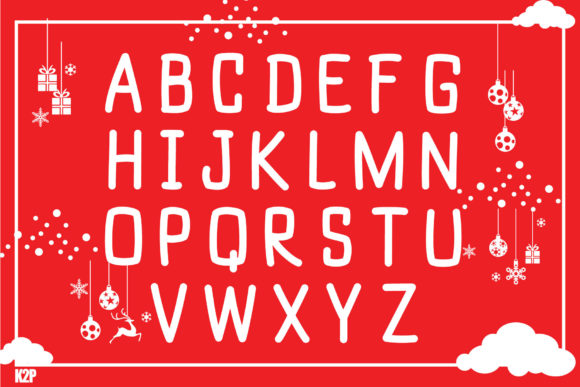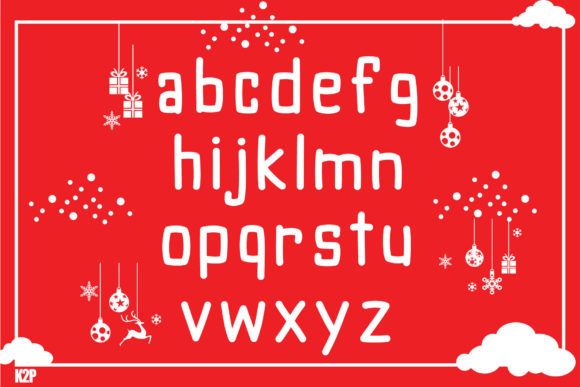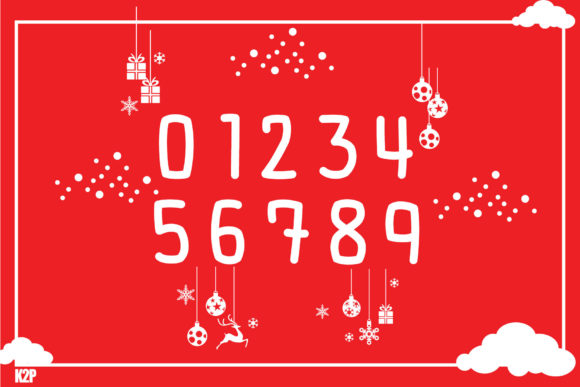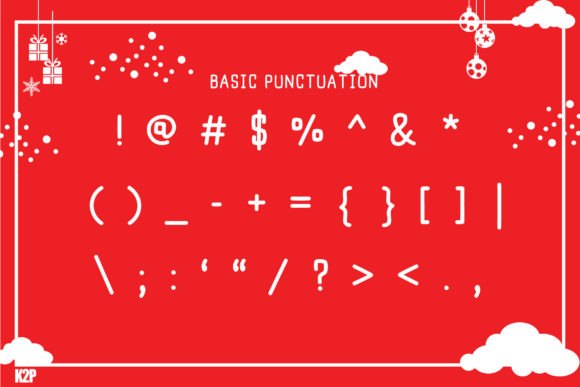
The Magic of Christmas!! Font: A Designer’s New Best Friend
Ah, the joys of searching for the perfect font for a design project! I still remember the time I was working on a Christmas-themed craft project, and I just couldn’t find a font that captured the festive spirit. That was until I stumbled upon Christmas!! Font, a sweet and friendly handwritten font that has since become a staple in my design toolkit.
So, what makes Christmas!! Font so special? Here are a few things I absolutely love:
- ✨ Natural and unique style: This font has a certain charm that sets it apart from more generic fonts.
- ✅ Versatility: It works beautifully for a wide range of designs, from festive holiday cards to playful craft projects.
- 💕 Emotional connection: The handwritten style of Christmas!! Font makes it easy to create designs that feel warm and inviting.
Of course, no font is perfect, and there are a few quirks to be aware of:
- 🤔 Limited use of uppercase letters: While the font does have uppercase letters, they’re best used sparingly to avoid overwhelming the design.
- ⚠️ Occasional kerning issues: As with any font, you may need to adjust the kerning to get the perfect spacing between letters.
- Experiment with OpenType features like ligatures and stylistic alternates to add some extra flair to your design.
- Explore the font’s glyphs and stylistic alternates to add some personality to your design.
The Story Behind Christmas!! Font
Legend has it that Christmas!! Font was created by a designer who wanted to capture the magic of the holiday season in a font. With its natural, handwritten style, it’s no wonder this font has become a favorite among designers and crafters alike.
Q: What makes Christmas!! Font so special?
A: Christmas!! Font has a unique, handwritten style that makes it perfect for festive holiday designs and playful craft projects.
Q: Is Christmas!! Font suitable for body text?
A: While Christmas!! Font is beautiful, it’s best used for headings or titles rather than body text. Its unique style can be overwhelming for longer blocks of text.